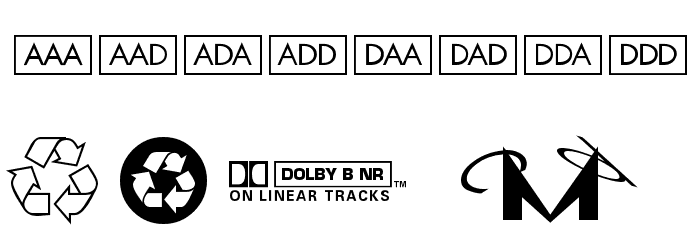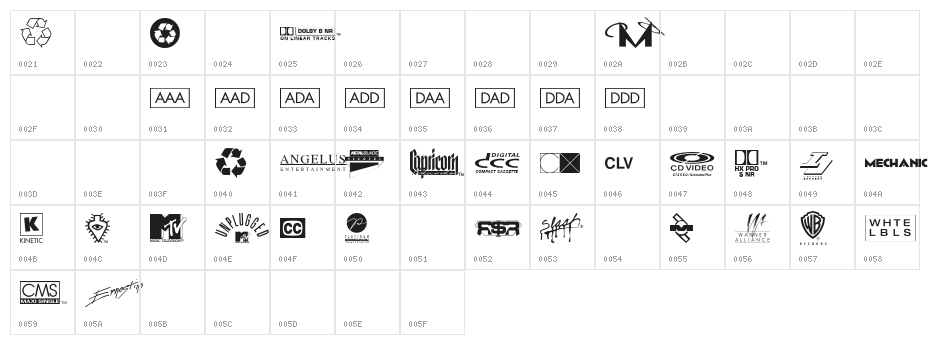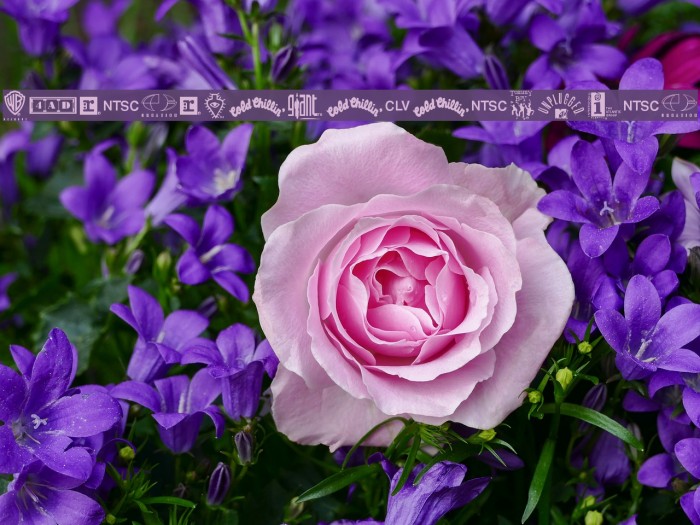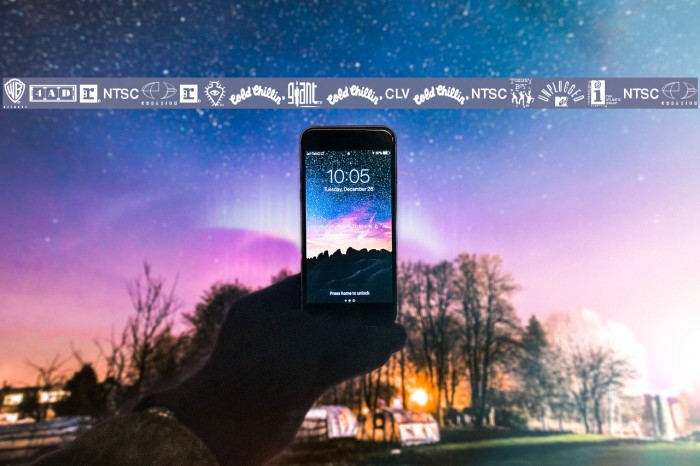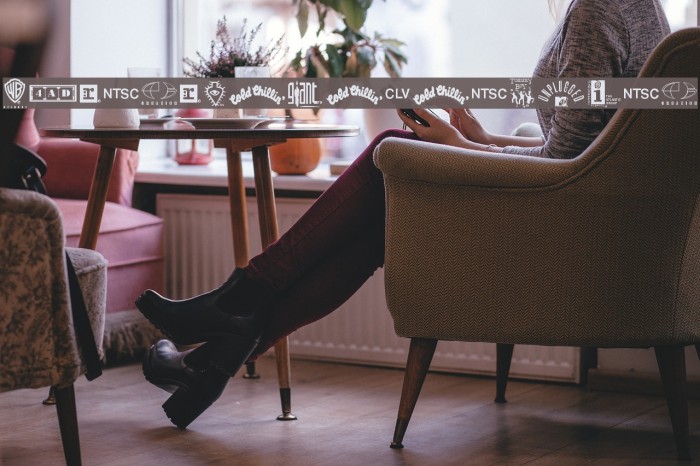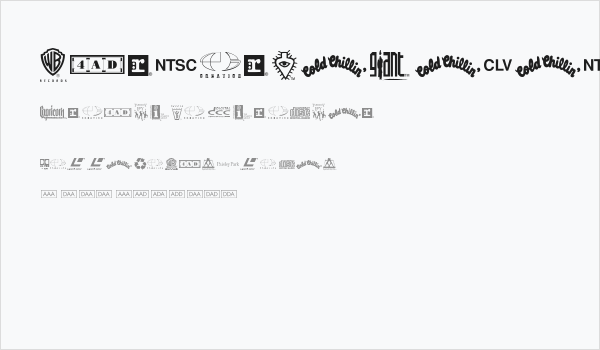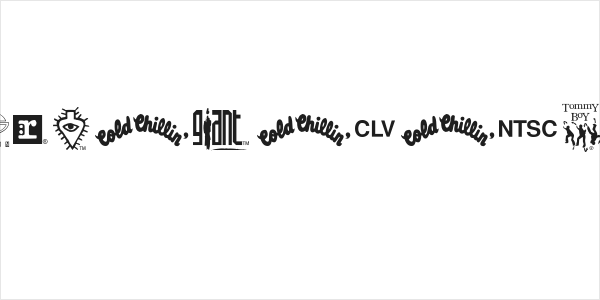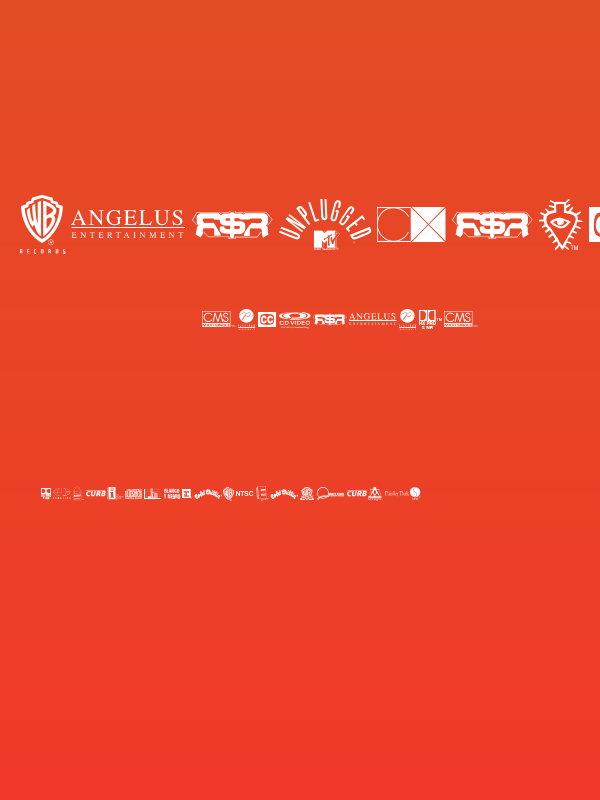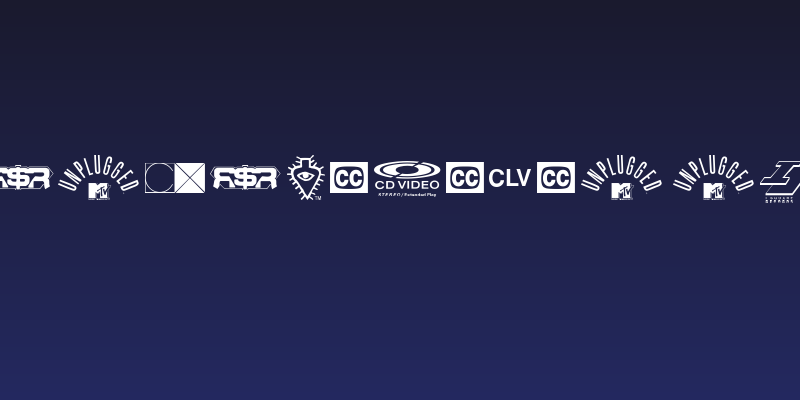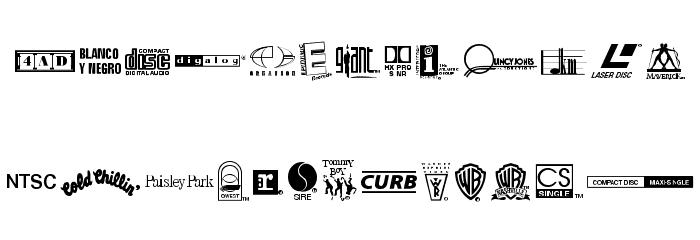
WarnerLogoFontNine Font
WarnerLogoFontNine Description
A collection of various music and media company logos, symbols, and label marks, each with distinct typographic styles and graphic elements, rather than a unified font set. The image consists of logotypes, icons, and boxed letter combinations, not a consistent typeface.
| Overall Style | Various (logo art, not font design) |